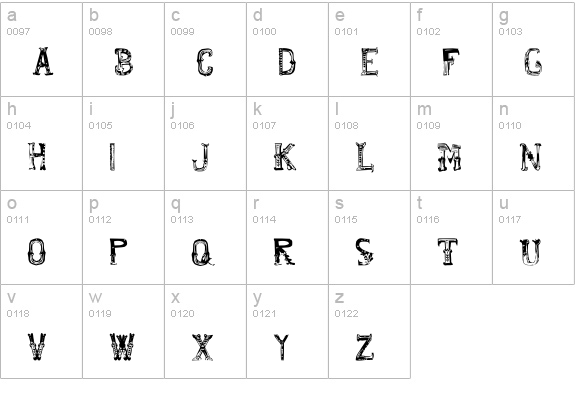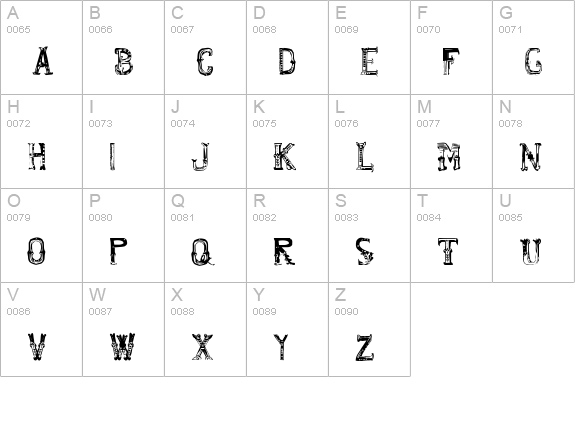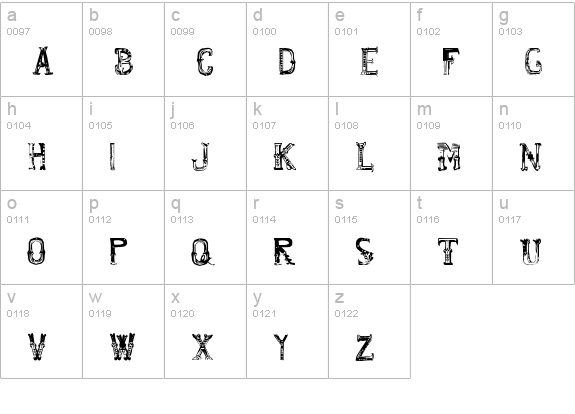
francis_mirtha Font Details
Introducing the exquisite and playful Francis Mirtha font, a delightful typeface that exudes charm and elegance. Its unique blend of sleek lines and whimsical curves make it perfect for a wide range of design projects, from branding to invitations and everything in between. With its distinct personality and versatility, Francis Mirtha is sure to add a touch of sophistication to any creative endeavor. The best part? This stunning font is available for free download at FontsMarket.com, making it easily accessible to designers and creatives looking to elevate their work with a touch of elegance and flair. So why wait? Enhance your projects with the beauty of Francis Mirtha today!